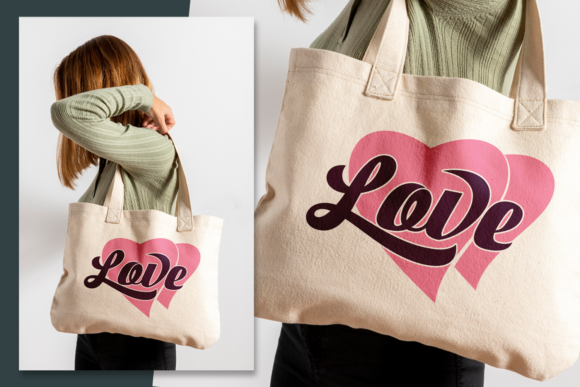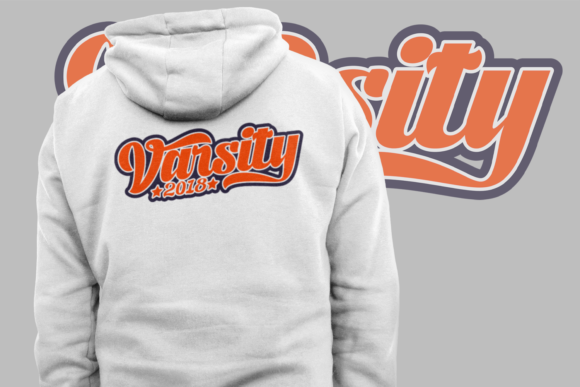
Rushbold Font
db-ku.com - Script & Handwritten -- Rushbold is a gorgeous and bold handwritten font, crafted to give your headlines and logotype projects a retro touch. This font is PUA encoded which means you can access all of the glyphs and swashes with ease!